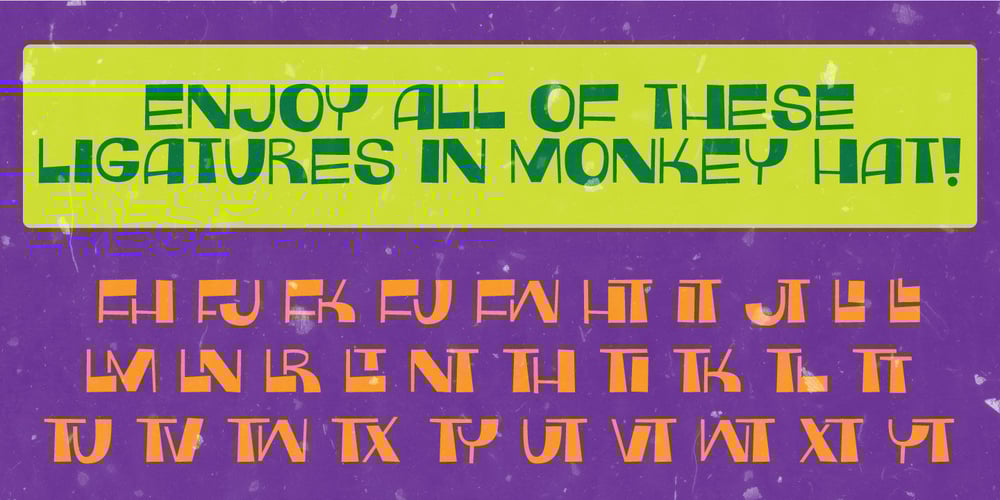
Monkey Hat Font Family was designed by Jakob Fischer and published by PizzaDude.dk. Monkey Hat contains 1 styles and family package options. Monkey Hat is art deco with a fresh twist of graffiti, and on top of that a lot of funk! Comes with a good handful of ligatures to make the text even more playful!